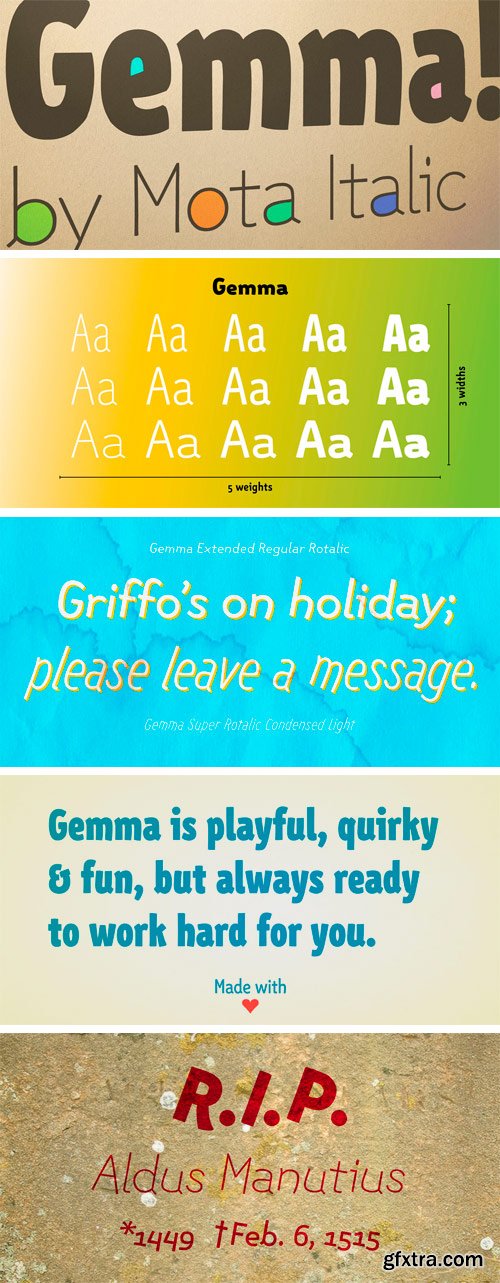
Gemma™ wants to be your best friend. And like a best friend, she’s always there for you when you need her. When you encounter complex typographic situations she’s by your side with an extensive & impeccably crafted range of characters & styles. And when you just want to have fun she’s there to entertain with loads of amusing additions and her quirky personality. At first glance you’ll be taken in by her lighthearted and casual demeanor – but don’t be mistaken, she’s totally hardcore.